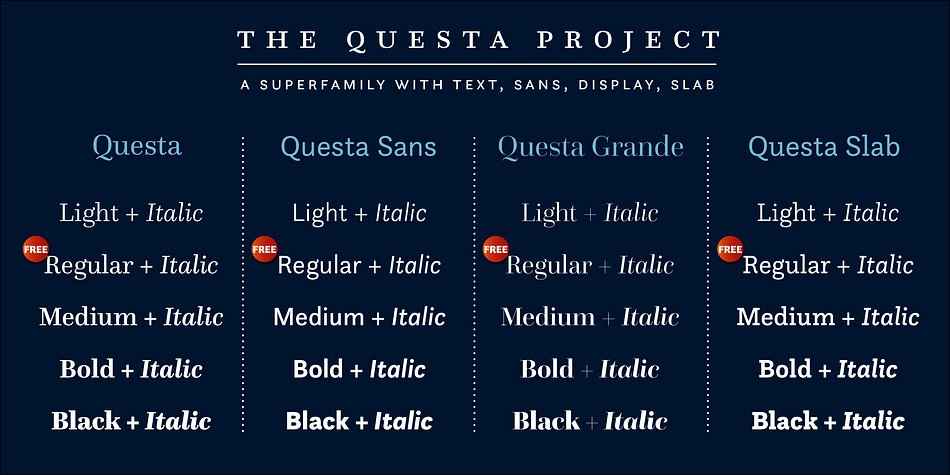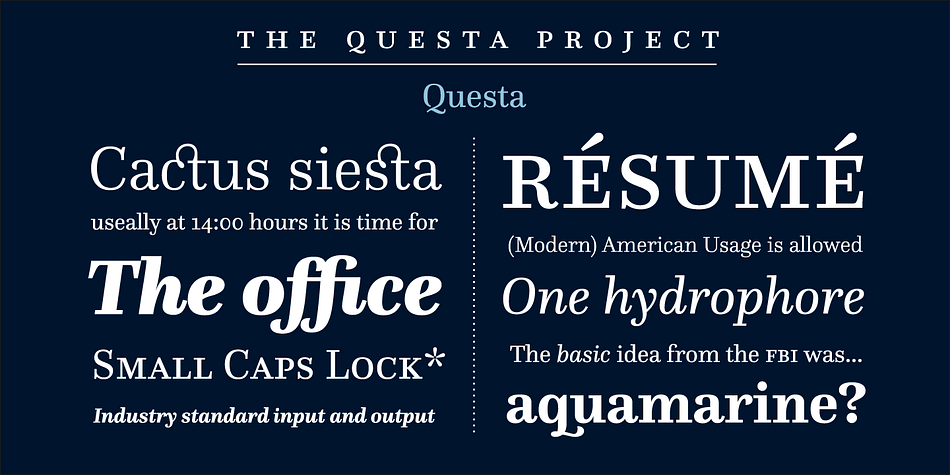
Questa is a serif font family. This typeface has ten styles and was published by The Questa Project.
Questa is a text typeface and counts 10 fonts. It is part of a type system called The Questa Project, containing a serif, a matching sans and a matching display version.
The inclusion of small caps, four sets of figures, ligatures and extended language support makes Questa a real workhorse typeface.
The Questa Project is a collaborative type design project by Jos Buivenga and Martin Majoor.